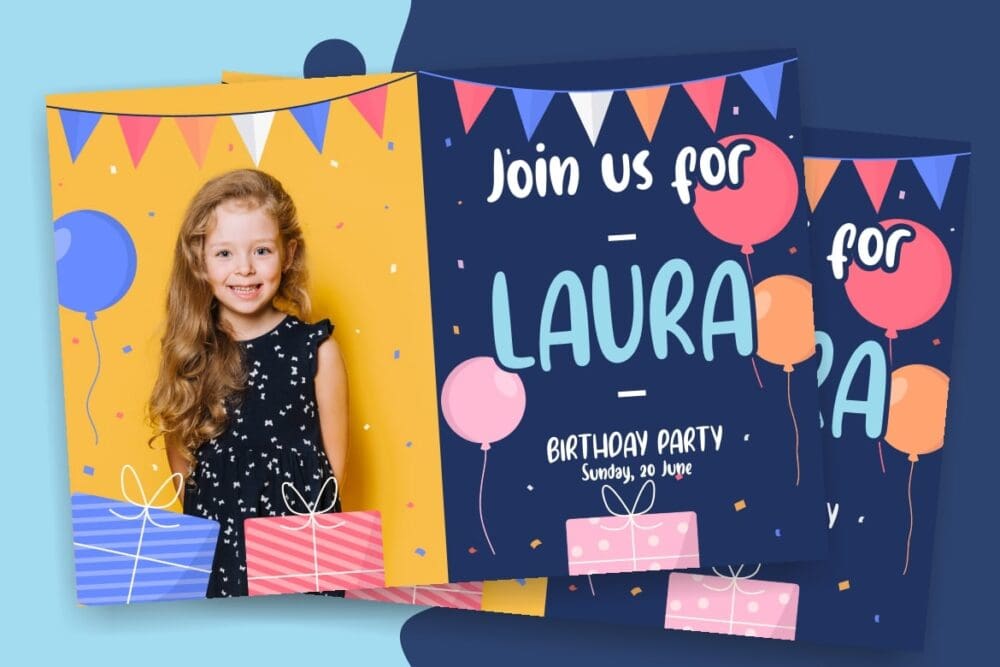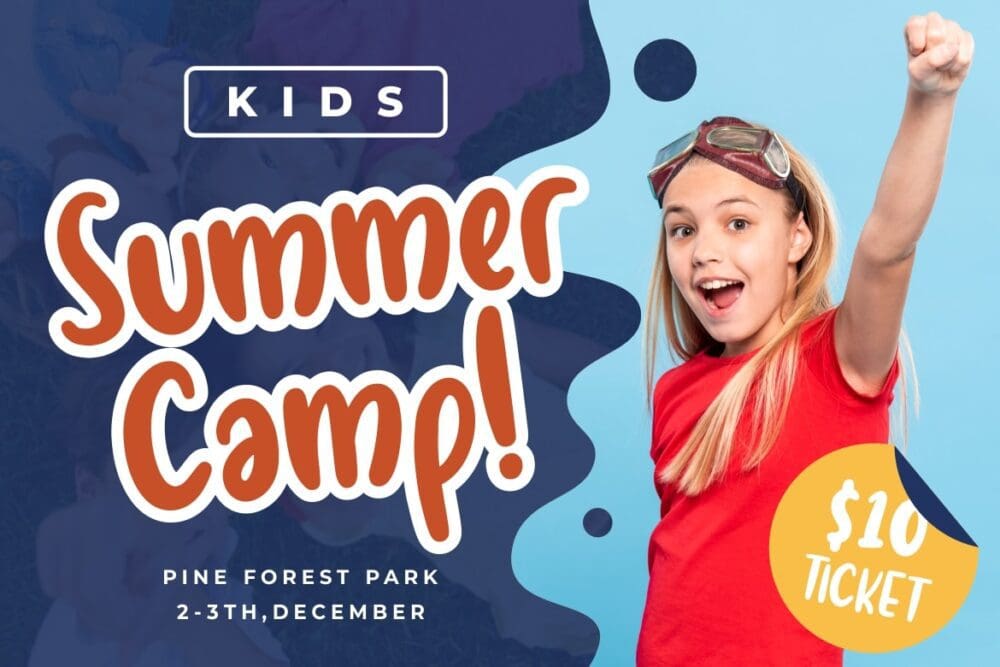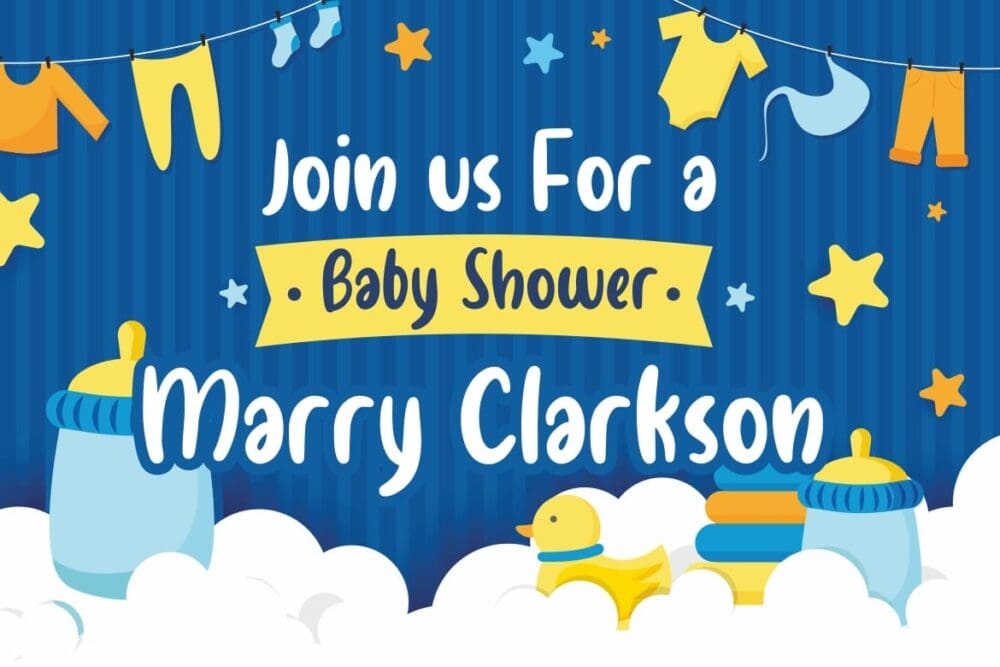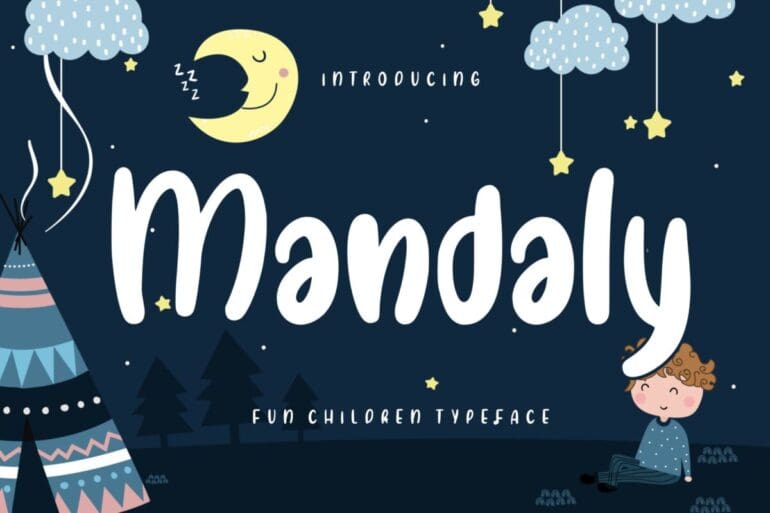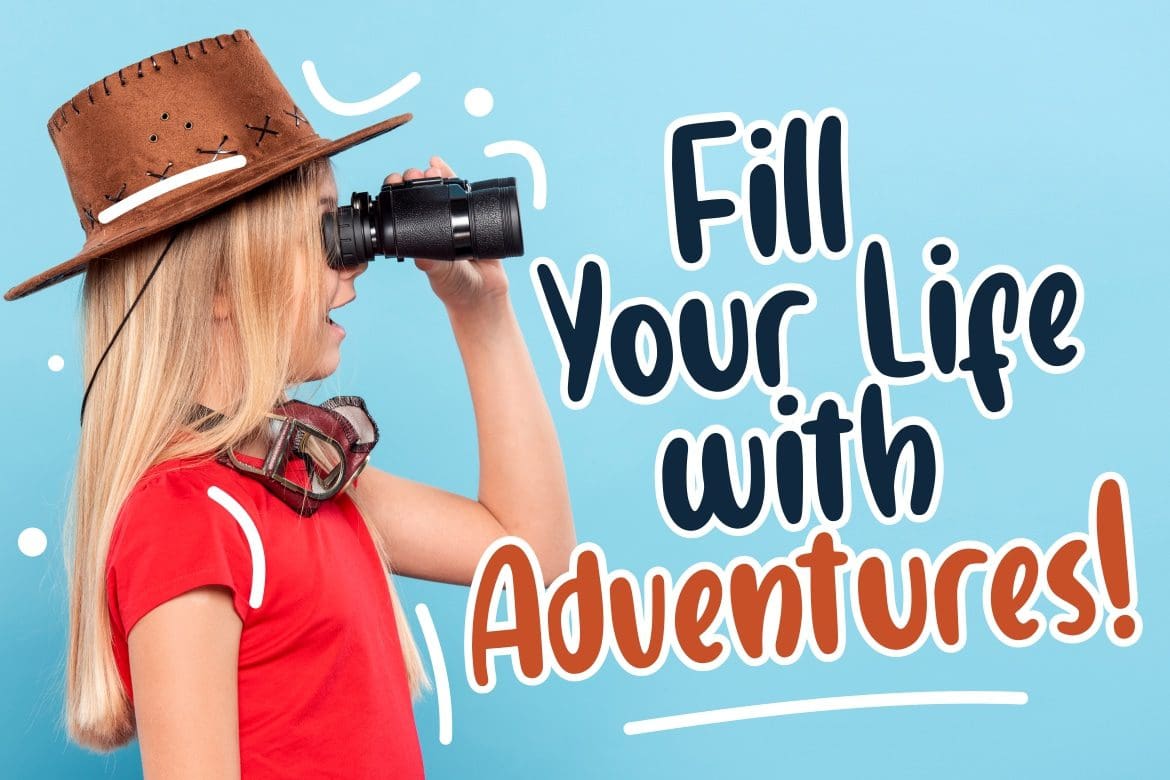
Mandaly Display Font
Mandaly Display Font which suitable to use for children-related occasions. Mandaly is perfect for branding projects, logos, wedding designs, advertisements, product designs, labels, invitations, stationery, and any other projects.